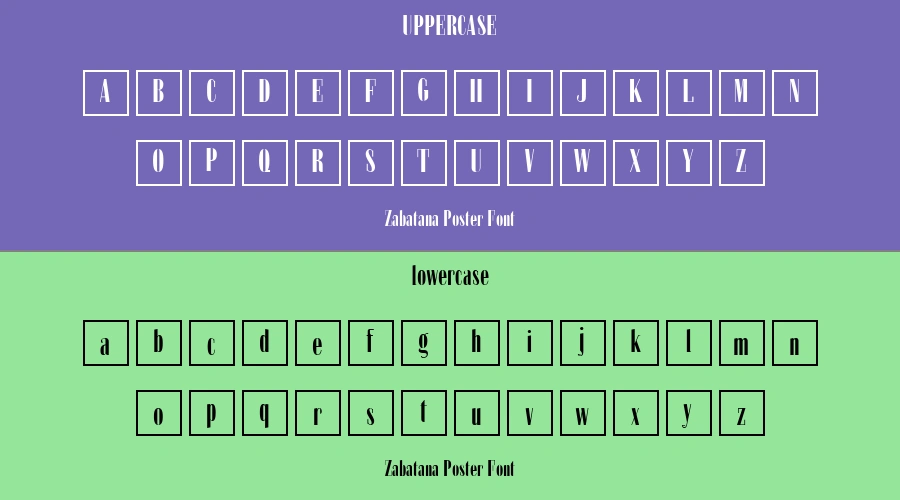
About Zabatana Poster Font
Zabatana Poster Font embodies typographic excellence through its masterful combination of dramatic weight and functionality. Created for poster titles, this typeface delivers exceptional durability and creative potential across all applications. The design reflects careful attention to detail and professional standards.
Advanced capabilities include distinctive geometric precision and versatile tabular figures, giving designers creative control. When used in campaign headers, Zabatana Poster Font exhibits remarkable purchase influence. The harmonious balance between x-height proportion and professional credibility sets this typeface apart.